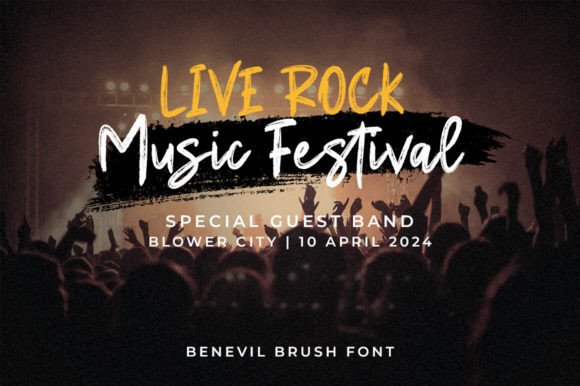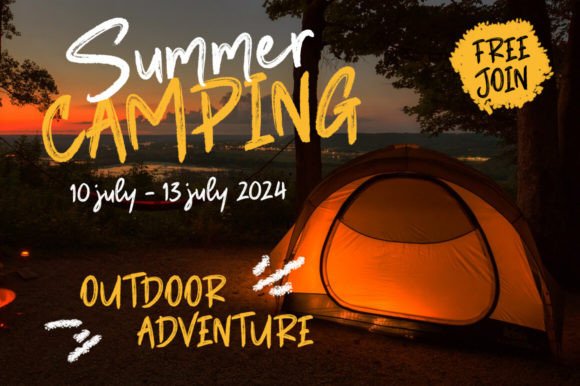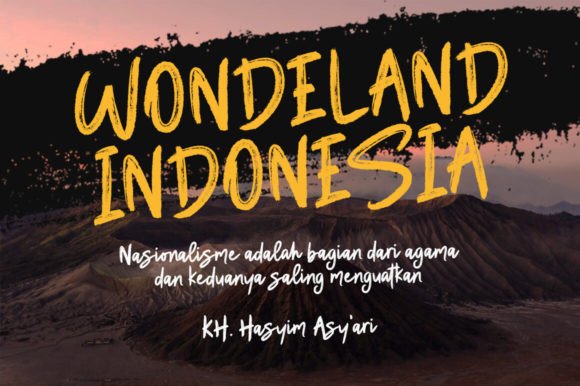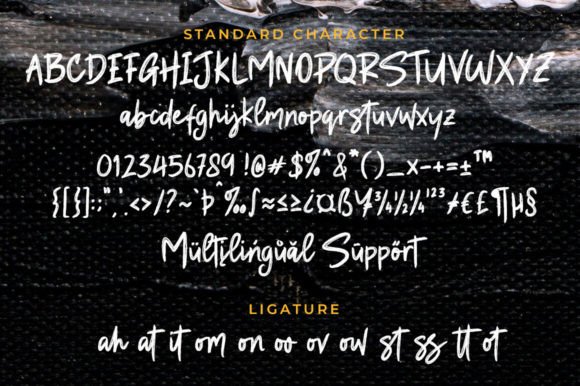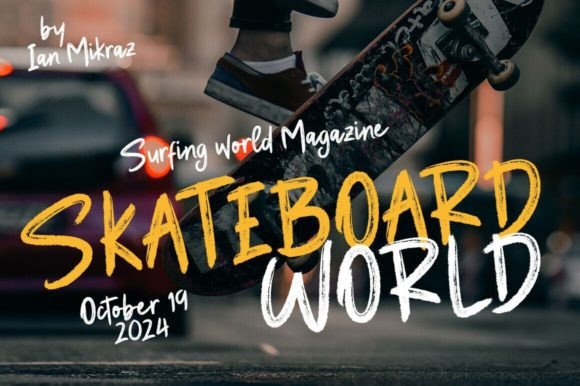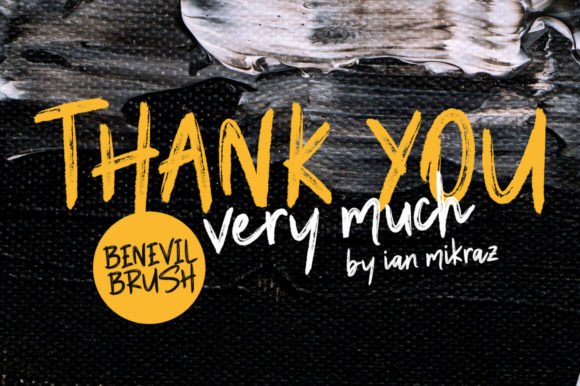
Benevil Brush Font: Unleash Your Creativity with a Vibrant Handbrush Font
In the world of typography, a good font can make all the difference in elevating your design to the next level. If you’re looking for a font that exudes energy, personality, and creativity, look no further than Benevil Brush. This stunning handbrush font is designed to add a bold and dynamic aesthetic to your projects, making it perfect for designers, crafters, and artists alike.
What is Benevil Brush Font?
Benevil Brush is a handbrush font that boasts an authentic, hand-drawn feel. With its unique and expressive characters, this font is sure to add a touch of personality to any design project. Whether you’re creating posters, invitations, branding materials, or digital content, Benevil Brush delivers a vibrant and attention-grabbing aesthetic that’s sure to leave a lasting impression.
Key Features of Benevil Brush Font
- Authentic Hand-Drawn Feel: Benevil Brush features an authentic hand-drawn feel that gives your designs a unique and personal touch.
- Vibrant and Expressive Characters: The font boasts vibrant and expressive characters that are sure to add energy and personality to your designs.
- Versatile Character Set: With a versatile character set, Benevil Brush gives you the freedom to create stunning designs that stand out from the crowd.
- Bold and Dynamic Aesthetic: This font delivers a bold and dynamic aesthetic that’s perfect for making a lasting impression.
Benevil Brush is perfect for designers and crafters who want to add a touch of creativity and personality to their projects. Whether you’re designing:
- Posters and Flyers: Add a bold and eye-catching headline to your poster or flyer with Benevil Brush.
- Invitations and Cards: Create beautiful and unique invitations and cards with Benevil Brush’s expressive characters.
- Branding Materials: Use Benevil Brush to create stunning branding materials, such as logos, business cards, and brochures.
- Digital Content: Add a touch of personality to your digital content, such as social media graphics, blog posts, and email newsletters.
Why Choose Benevil Brush Font?
- Unique and Expressive: Benevil Brush is a unique and expressive font that’s sure to add a touch of personality to your designs.
- High-Quality Design: This font is designed with high-quality and attention to detail, ensuring that your designs look professional and polished.
- Versatile: This font is versatile and can be used for a wide range of design projects.
| Author | Ian Mikraz |